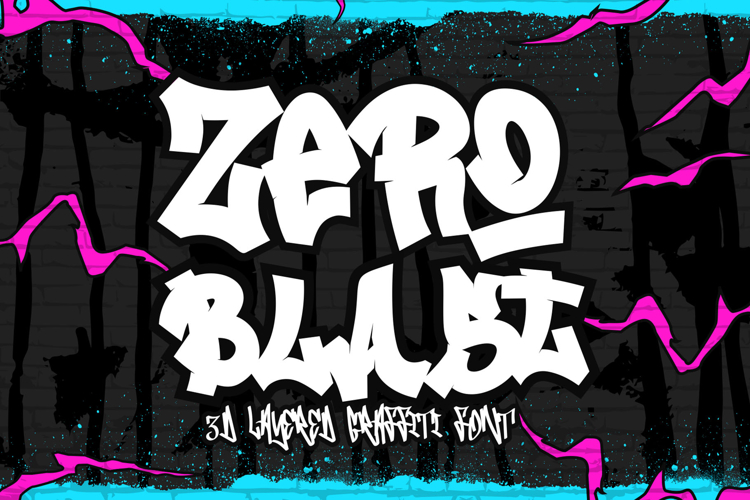
Zero Blast - Stylish 3d layered graffiti font
ย Zero Blast โ A Bold, 3D Layered Graffiti Font! ๐จโจ
Unleash the power of street art with Zero Blast, a stylish and sharp 3D graffiti font designed to inject energy and depth into your designs! ๐ฅ With four dynamic layersโSolid, Extrude, Outline, and Inner Shadowโyou can create bold, eye-catching effects that stand out. Perfect for urban branding, posters, album covers, hip-hop designs, and more! ๐ถ๐จ